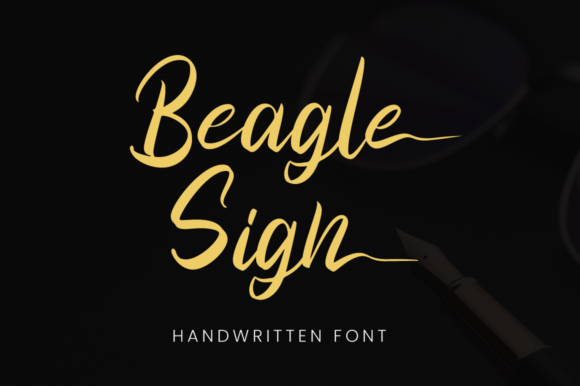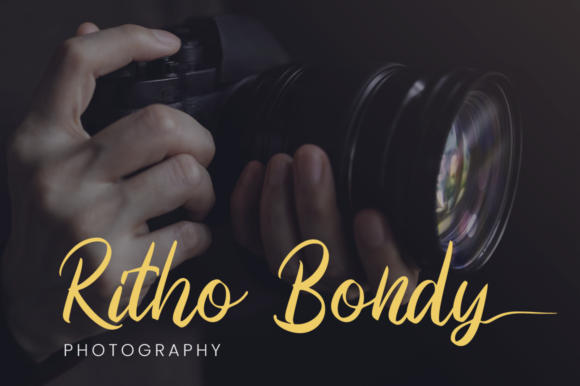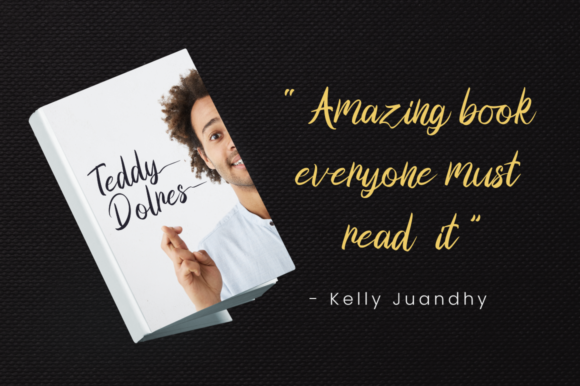
About Beagle Sign Font
Beagle Sign is a stylish signature font with a stylistic ending set that makes an amazing impact on each of your designs. Fall in love with its incredibly versatile style and use it to create spectacular designs!